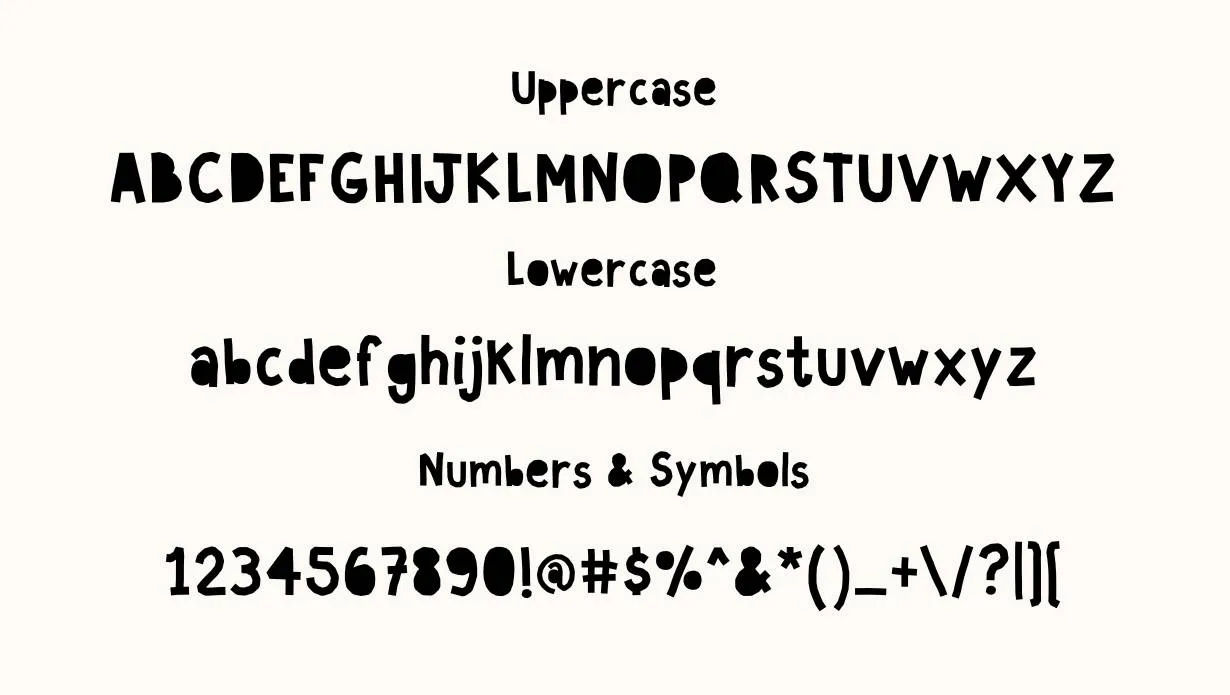
Paperland Font brings a whimsical and playful charm to your designs, making it well-suited for creative and imaginative projects. Its friendly characters and unique style add a touch of magic to children’s books, posters, or any design aimed at capturing the essence of fun.
| Name | Paperland Font |
| Designer | Nina |